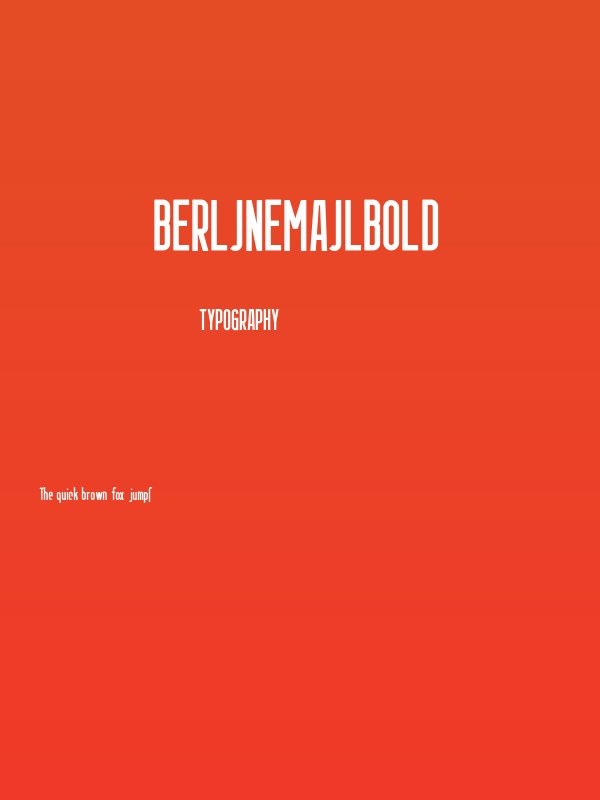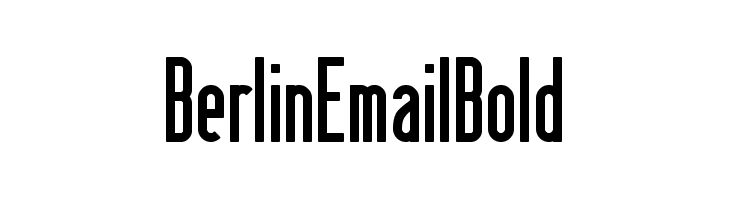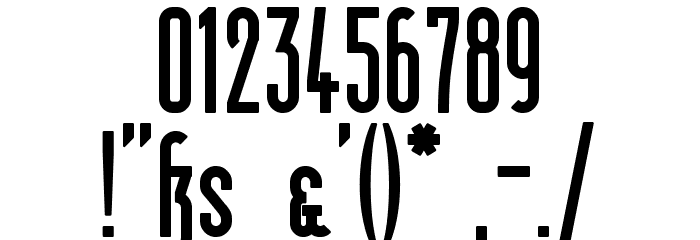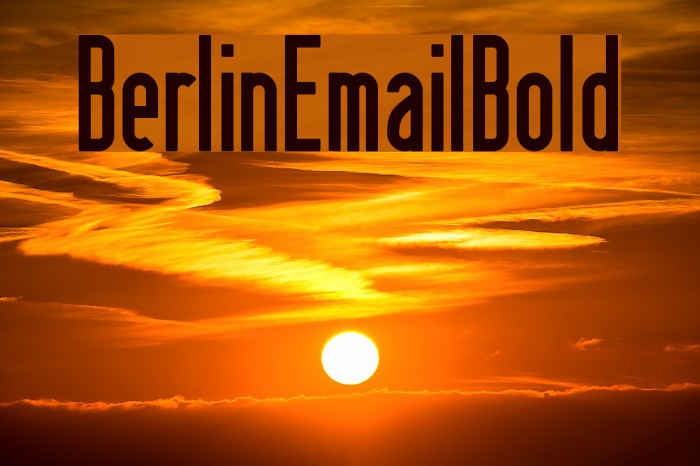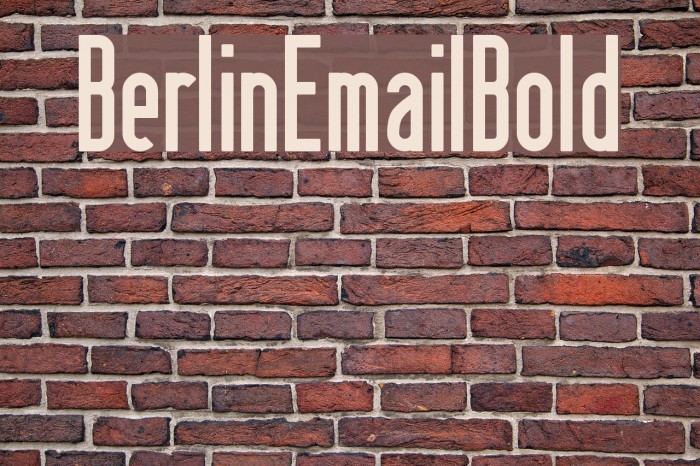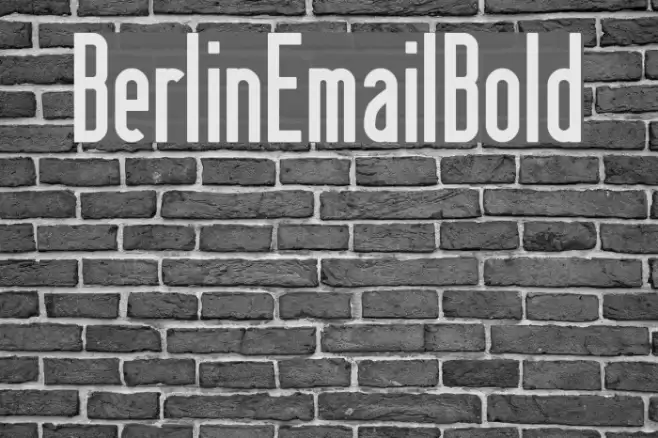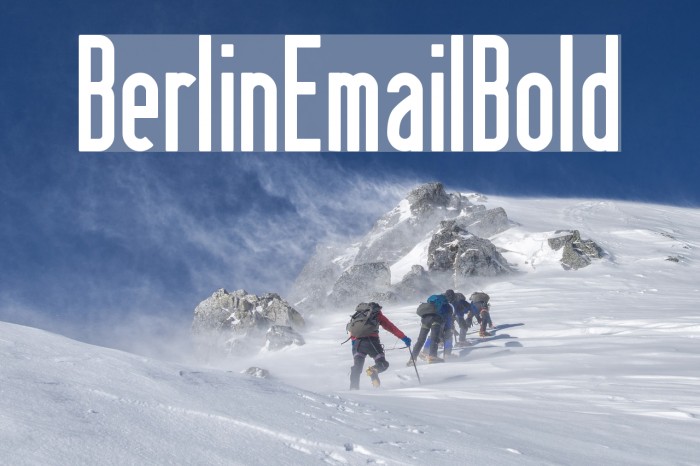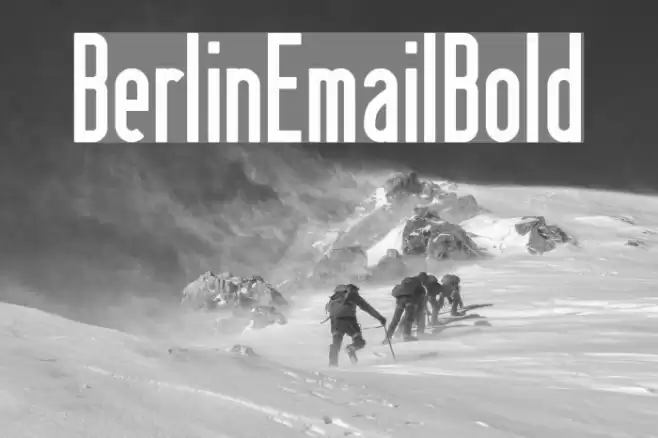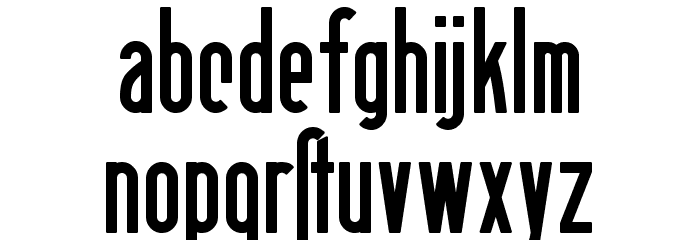
BerlinEmailBold Font
BerlinEmailBold Description
This font features a bold and condensed sans-serif style with a modern and sleek appearance. The uppercase letters are tall and narrow, creating a strong vertical emphasis, while the lowercase letters maintain a consistent width that complements the uppercase. The numerals are uniform in height, aligning well with the overall design. Special characters are distinct and maintain the bold, condensed style. The font's clean lines and lack of serifs give it a contemporary feel, making it suitable for various design applications where a strong, impactful presence is desired.
| Proposed Projects | Ideal for headlines, posters, branding, and any project requiring a strong visual impact. |